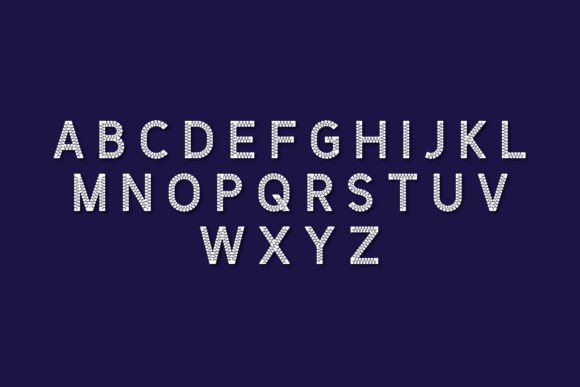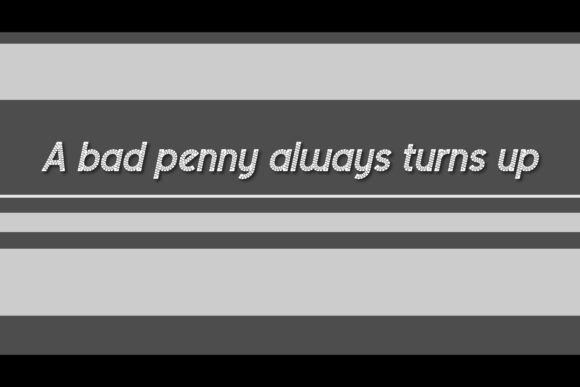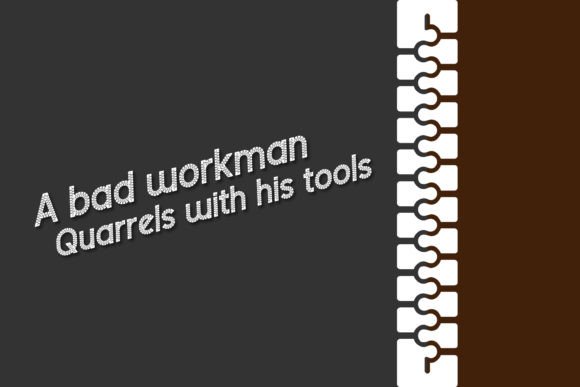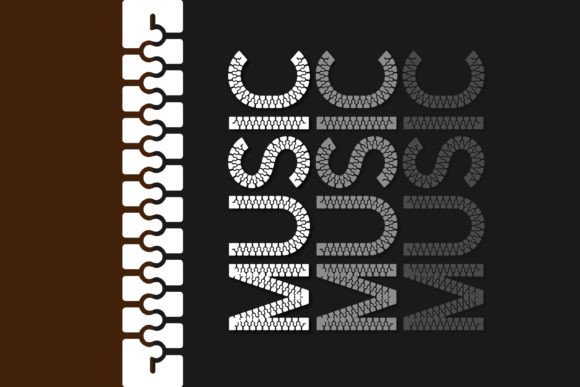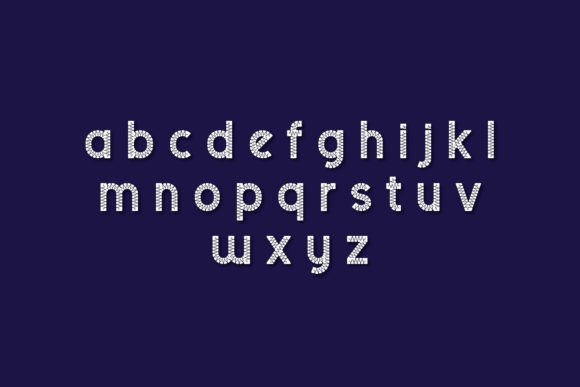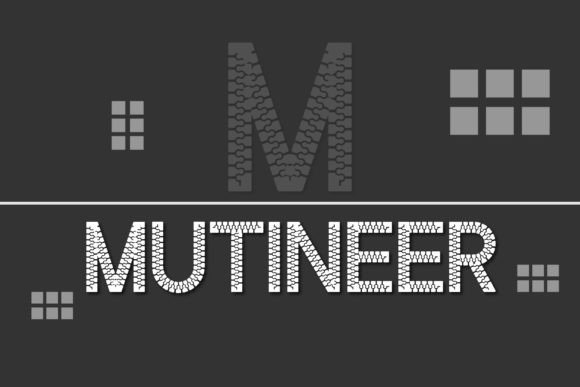
The Zip to Creative Freedom: Unlocking the Power of Ezip Font
You’ve spent hours brainstorming the perfect concept for your latest design project, pouring over inspiration boards and tweaking every detail. But it’s that one missing element that can make or break your masterpiece – the font. That’s where the Ezip Font comes in, a playful decorative typeface that’s about to revolutionize your creative process.
Imagine adding a dash of edginess to your designs with letters crafted from zippers. The Ezip Font is more than just a trendy twist – it’s a game-changer for designers who crave unique and eye-catching results. Whether you’re working on fashion-forward projects or quirky branding, this font is the perfect addition to take your designs to the next level.
Ezip Font Key Features
- Font Family: Ezip Font is a sans-serif font family designed for digital use, making it ideal for on-screen reading and publishing.
- Unique Characteristics: Features a clean, modern design with optimized letter spacing and kerning for improved readability, making it an excellent choice for digital content.
Ezip Font Review
Overall, I’m quite impressed with Ezip Font, a modern sans-serif typeface designed to convey a sense of playfulness and energy. ✨ Here are some of its standout features:
- Unique letterforms that add a touch of whimsy to text
- Open and airy feel that makes it perfect for digital use
- Excellent legibility, even at smaller font sizes
However, like any font, Ezip has its limitations. ⚠️ Some of these include:
- May not be suitable for formal or traditional settings
- Lack of bold or condensed weights may limit its versatility
- Some users may find it too playful or distracting
Overall, I think Ezip Font is a great addition to any designer’s toolkit. Its unique personality and excellent legibility make it perfect for digital projects, from apps to websites. While it may not be suitable for every project, it’s definitely worth considering for anything that needs a modern, energetic feel.
Ezip Font is ideal for:
- Bold headlines and titles
- Custom typography and logos
- Eye-catching headings and titles
- Creating visually appealing designs
Can I customize the Ezip Font to fit my brand’s style?
Yes, the Ezip Font is highly customizable, allowing you to adjust various parameters like weight, width, and slant. You can also use font editing software like FontLab or Glyphs to create custom variations of the font. Additionally, Ezip Font supports advanced features like font variations and glyph substitution, which enable you to create complex typography effects.